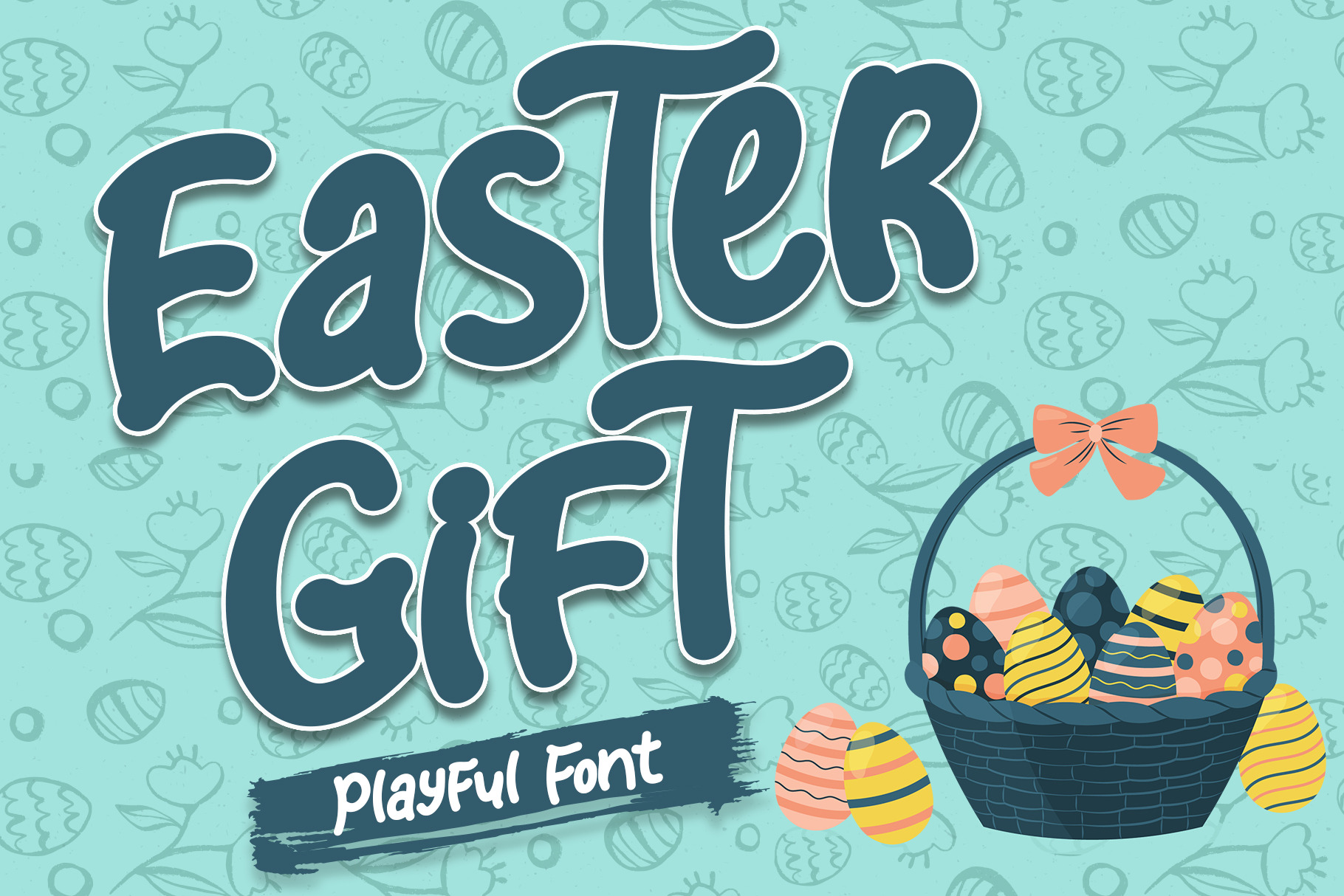
Easter Gift - Display Font
Easter Gift is a fun and playful display font. It has a cute style and great readability. It’s perfect for cards, branding, stationery, blog design, custom art, quote, custom stamps, custom embossers, books, apparel, packaging, headline, and much more!